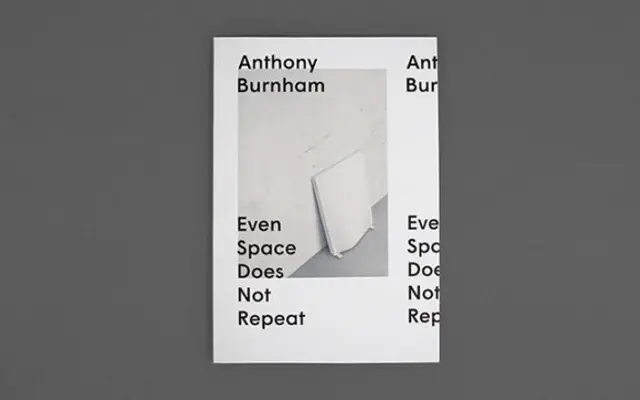
Wigrum
A grotesque sans-serif from Montreal-based Feedtype, suited to both text and display settings.
Released by Feedtype, a Canadian type foundry based in Montreal, Wigrum is a grotesque sans-serif designed for versatility across text and display applications. The family is modest in its current scope, offering Regular and Bold weights without italic companions. Its restrained construction places it in the tradition of functional grotesques rather than expressive display work.
Wigrum appears to be a grotesque or neo-grotesque sans-serif, consistent with the genre of workhorse display and text faces common to contemporary Canadian type design.